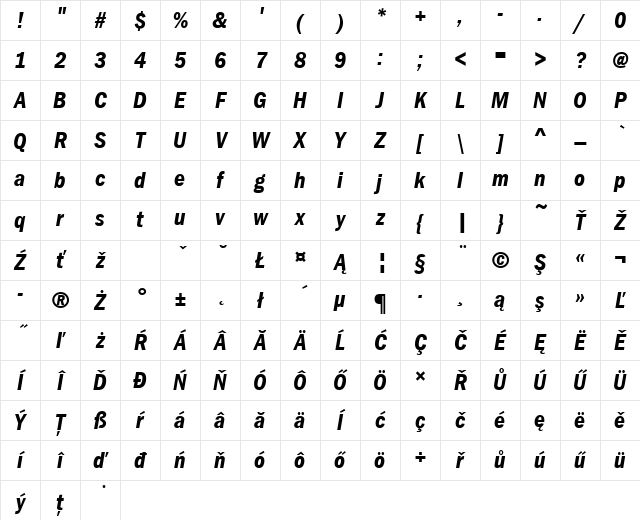
FranklinGotItcTEEDemCon Italic
Design Context for FranklinGotItcTEEDemCon
FranklinGotItcTEEDemCon is a composed and adaptable typeface that performs quietly and consistently across a wide range of design contexts. The slanted form adds forward momentum and visual energy.
Pro Tip: Use FranklinGotItcTEEDemCon for emphasis, pull quotes, and subheadings where its slanted energy can add rhythm to the layout.